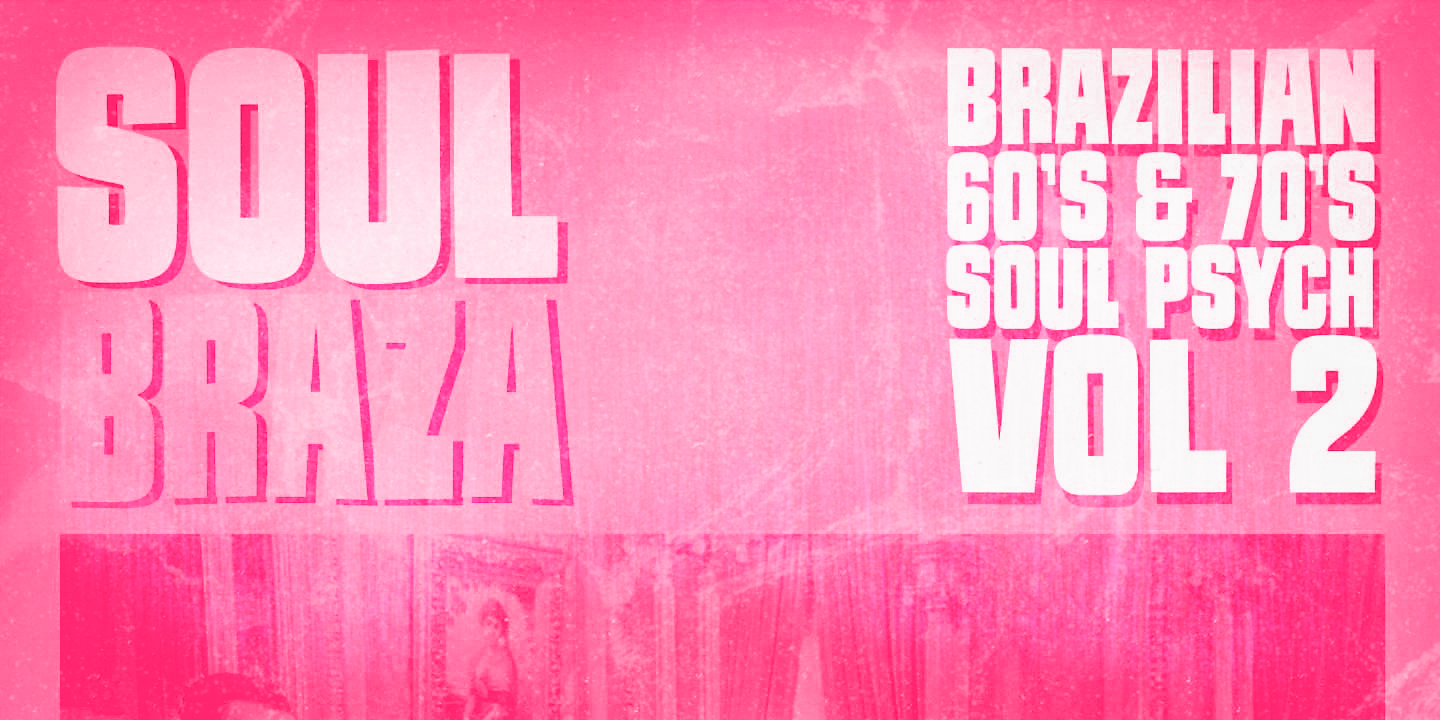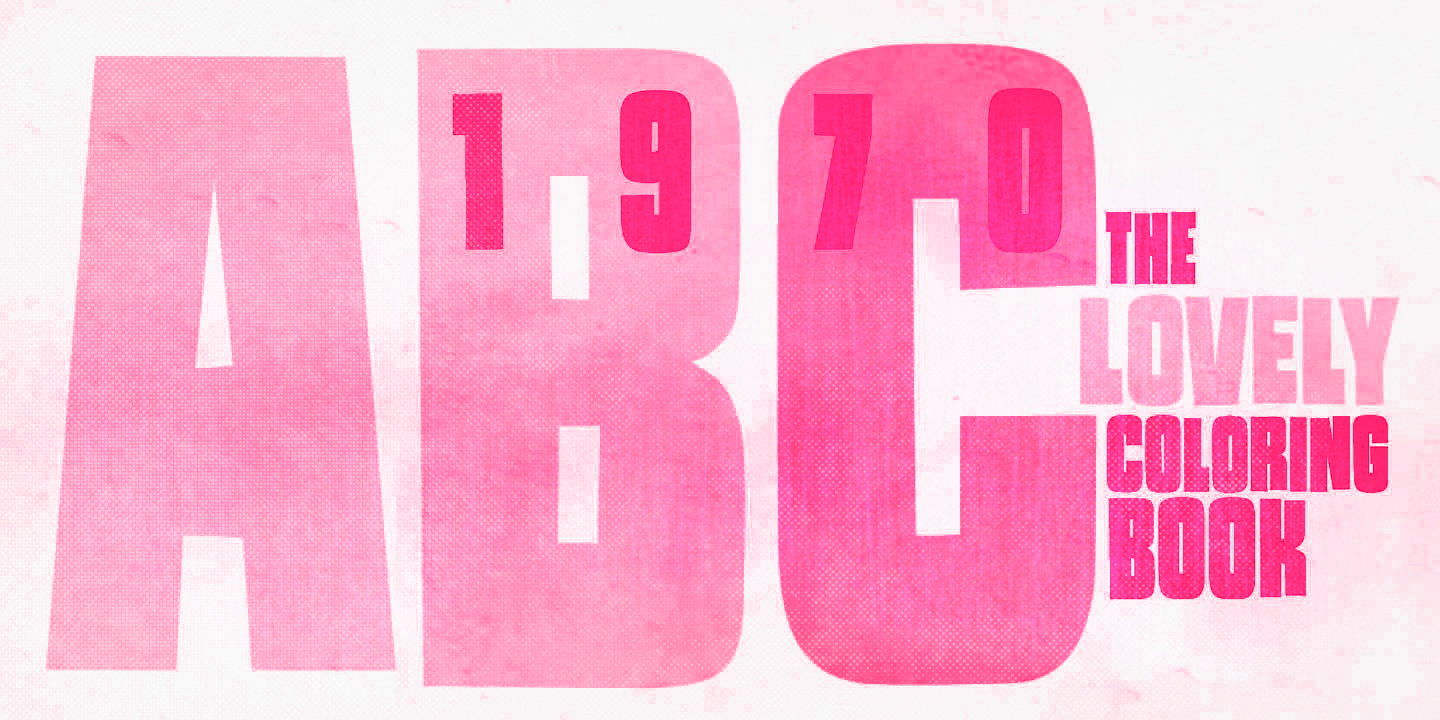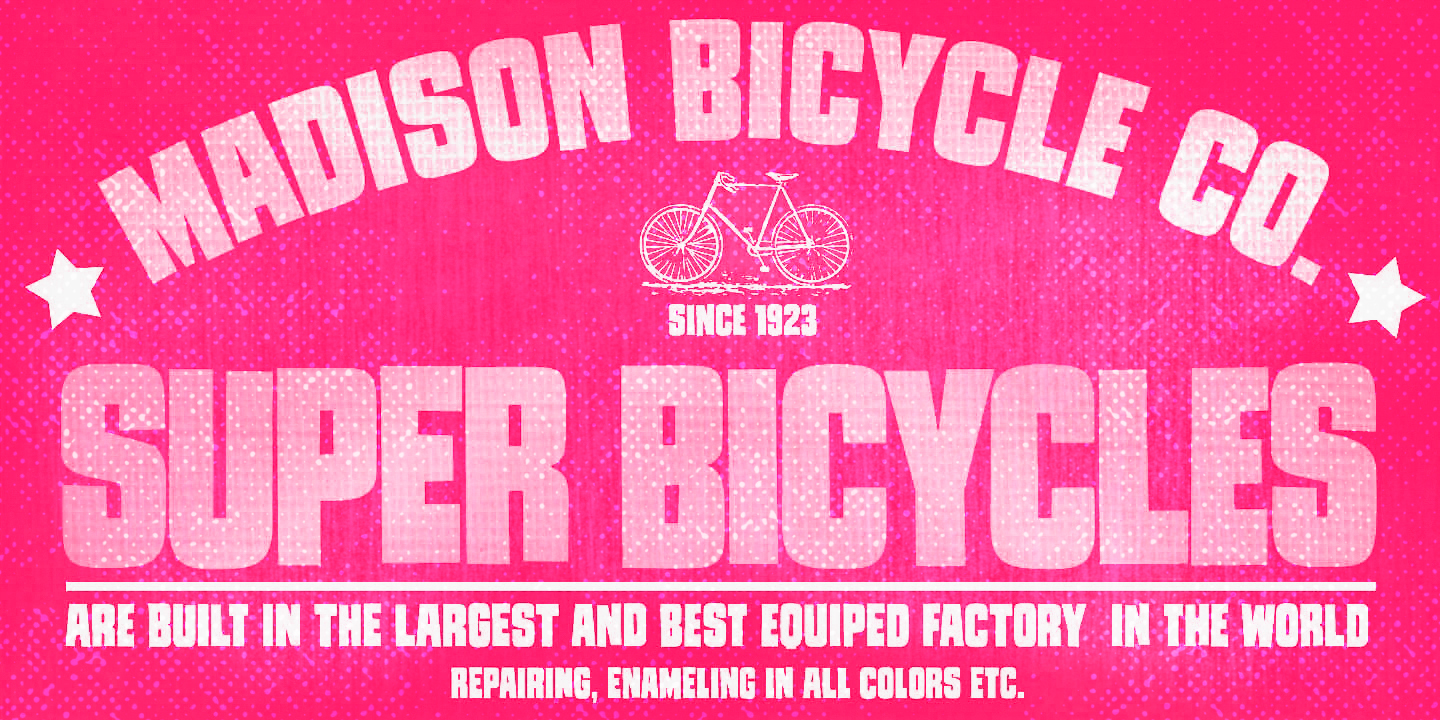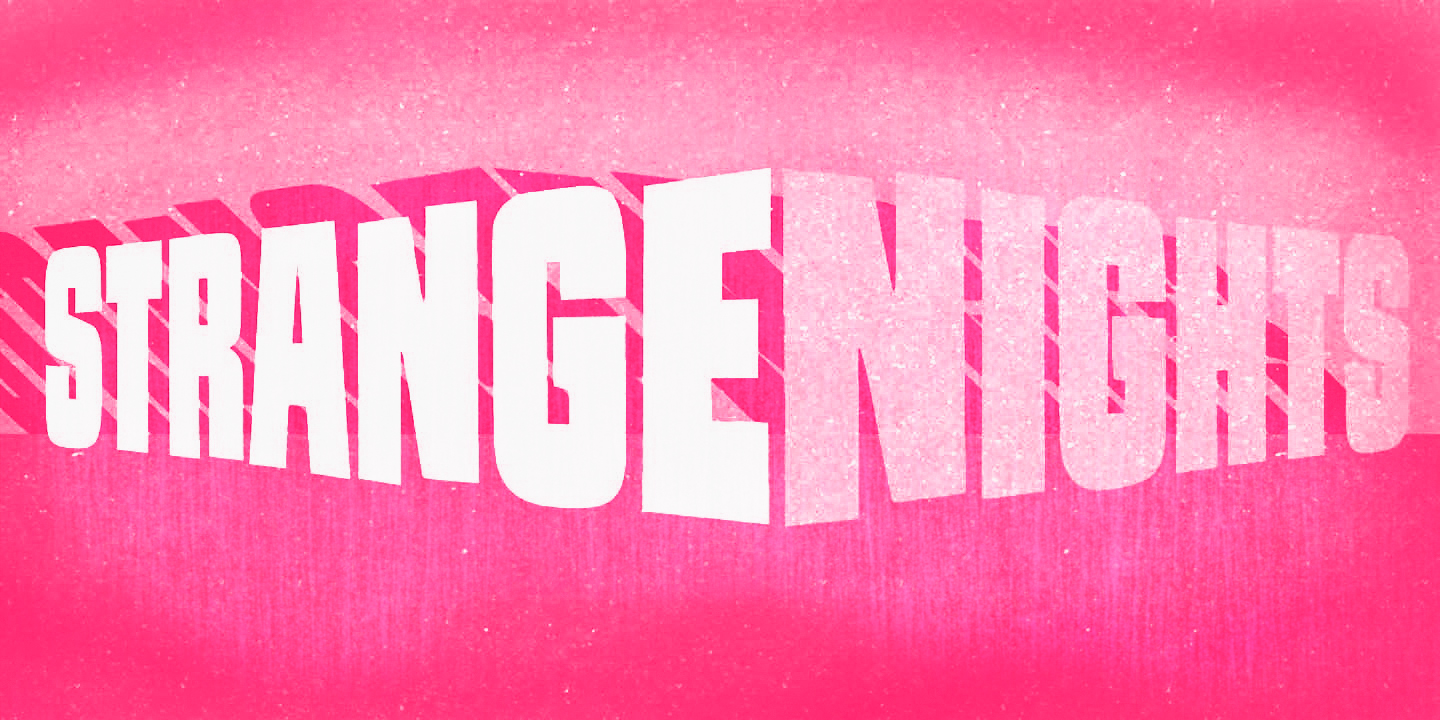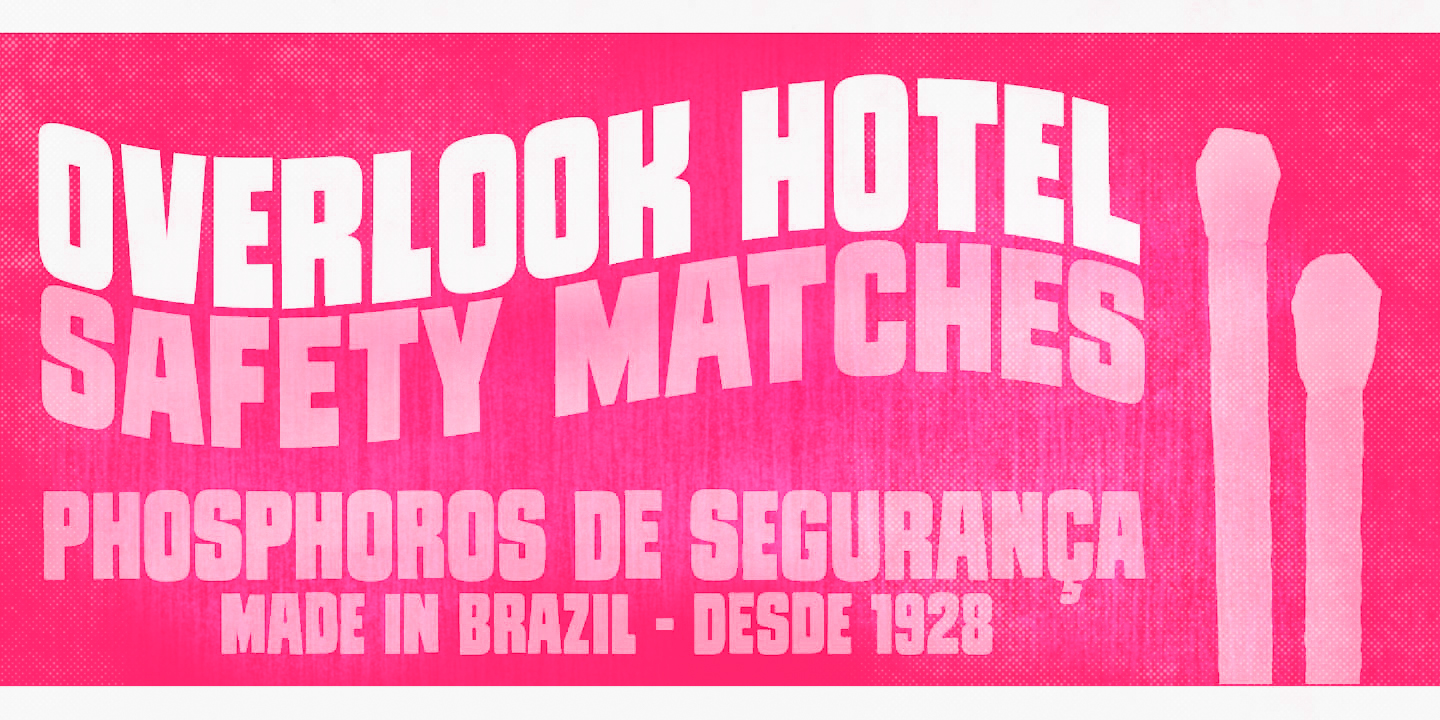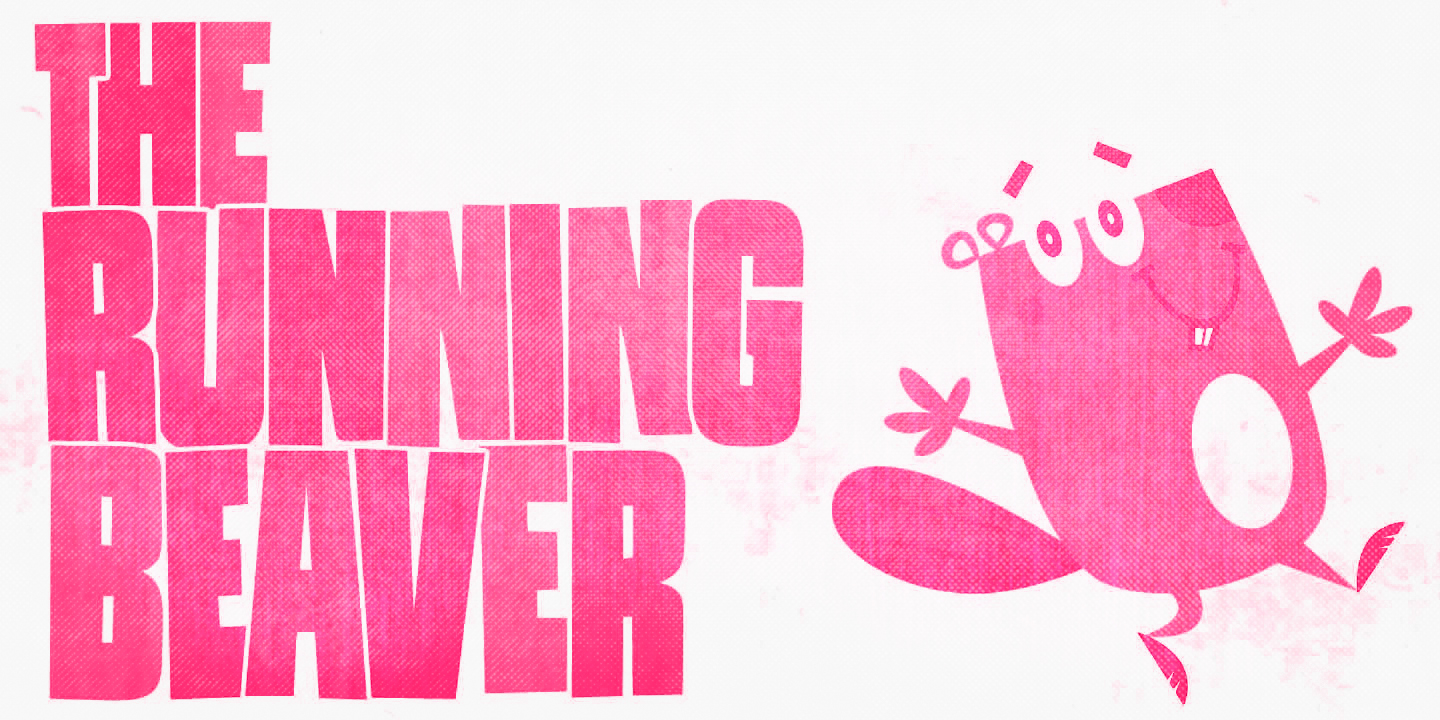
Tremendous
Tremendous Loose
Tremendous Regular
Tremendous Tight
Tremendous is strong and a little unpolished but absolutely warm-hearted. This family is totally versatile and will give the right tone to your message. It can be friendly, it can speak loudly, it can be almost severe, seriously! It just cannot go unnoticed! Available in three widths, with handy alternates, which is excellent if you want a more uneven look. Definitely use it stacked big and tight on posters, book covers, film posters, packaging, board games, albums, invitations, and advertisements.